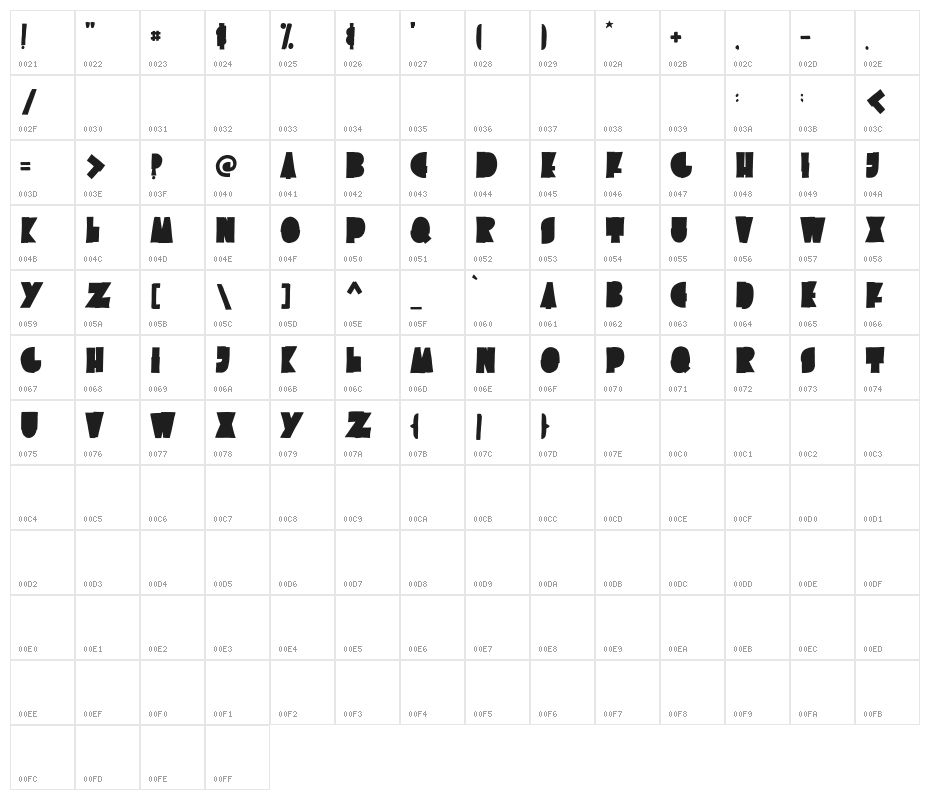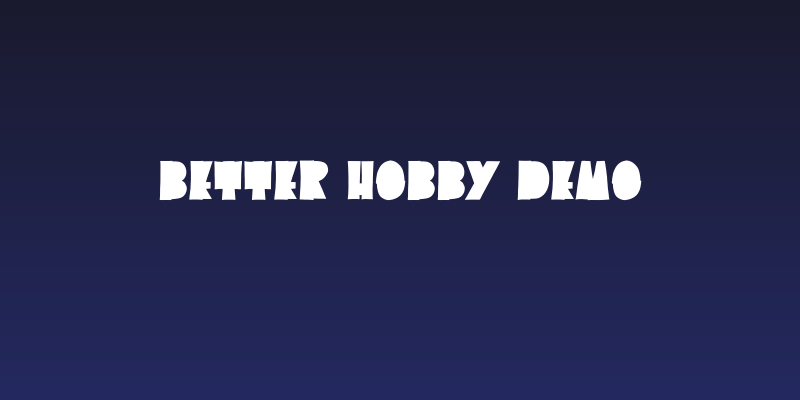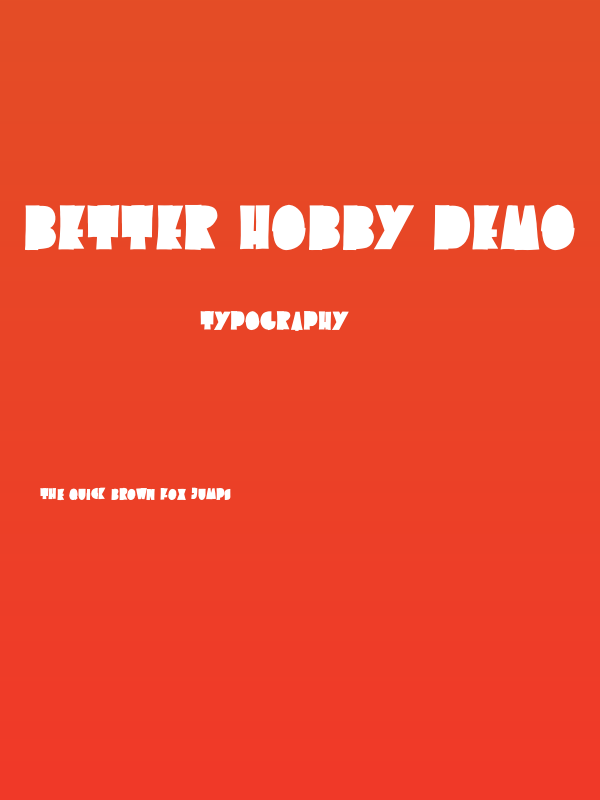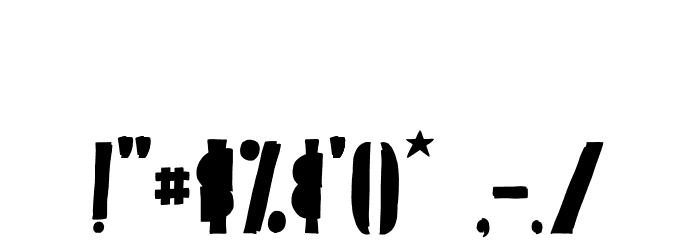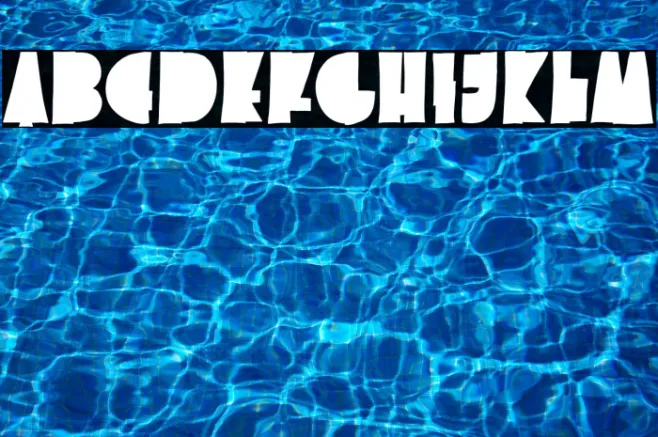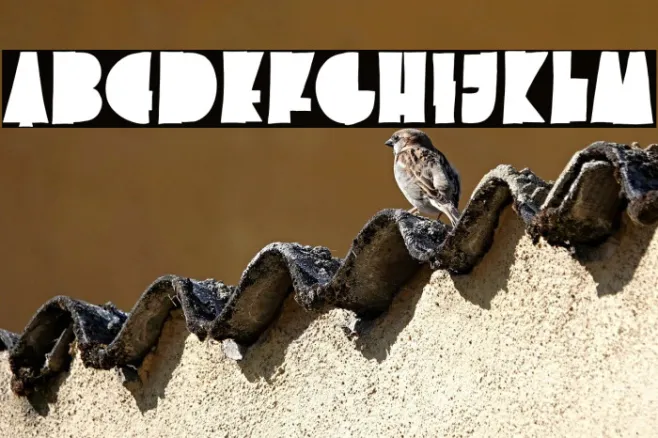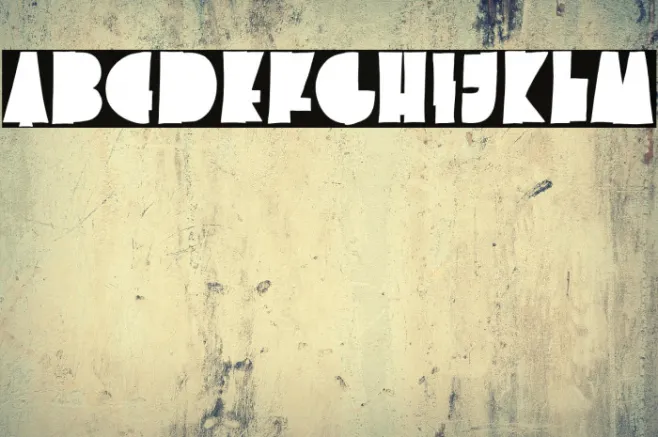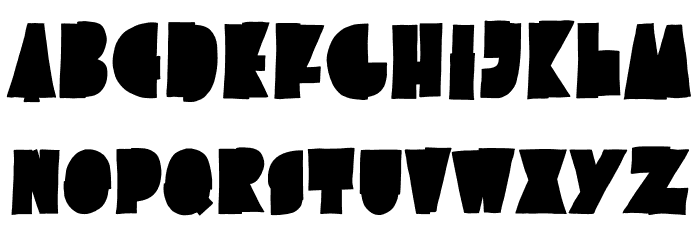
Better Hobby DEMO Font
Better Hobby DEMO Description
This font features a bold and playful design with a distinctly irregular and chunky appearance. Each character is crafted with a unique, almost hand-cut style, giving it a lively and dynamic feel. The letters are heavily weighted, with thick strokes that vary slightly in width, adding to the font's whimsical and artistic nature. The overall look is reminiscent of a retro or vintage poster style, making it stand out with its eye-catching and unconventional shapes. The font's boldness and distinctiveness make it ideal for projects that require a strong visual impact.
| Proposed Projects | Perfect for posters, album covers, children's books, and branding that requires a fun and bold statement. |